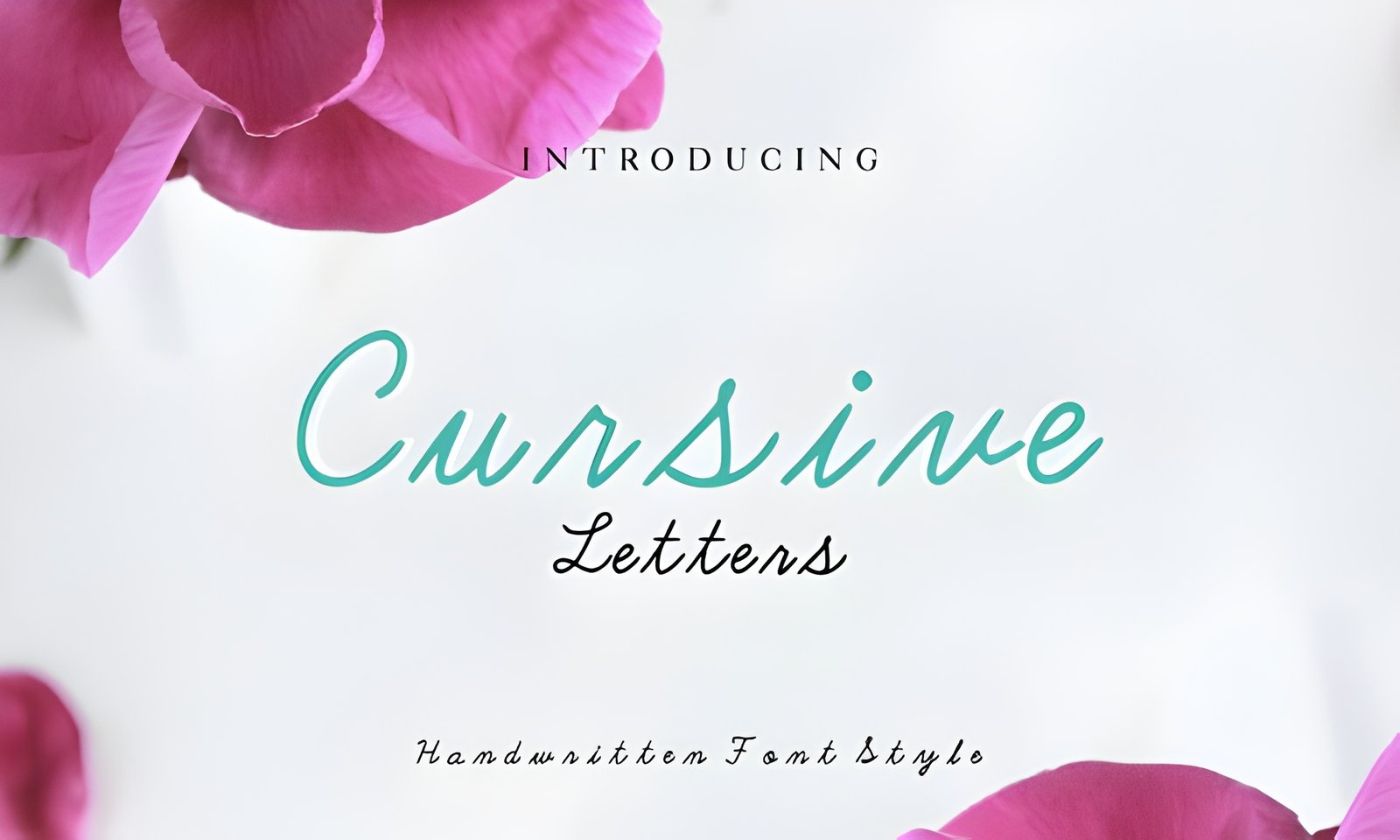
✒ Cursive Letters — Where Elegance Meets Expression
Like a quiet melody written in ink, Cursive Letters flows with grace and intention. Each stroke feels personal, as if lifted from a handwritten journal or a love note tucked between pages. This font doesn’t just decorate — it speaks.
Versatile and beautifully crafted, Cursive Letters fits effortlessly into any creative project: from branding and logos to heartfelt cards, fashion lookbooks, and artistic promotions. Whether you’re designing something bold or intimate, this typeface adds a touch of romance and refinement.
A true gem in any font library, Cursive Letters turns everyday text into something worth remembering. Let your words dance with elegance and leave a lasting impression.